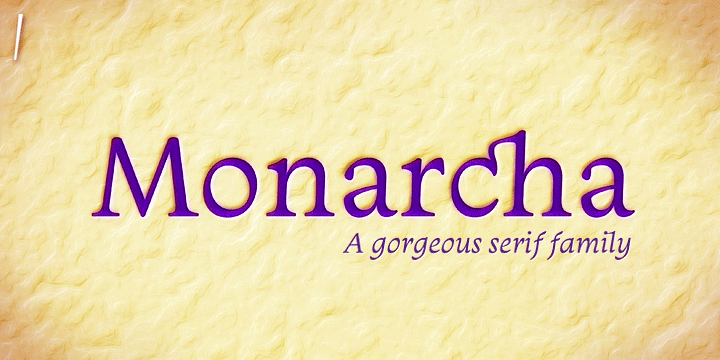
Monarcha Font is perfect for luxury royal heritage brands, prestigious crown estate communications, regal ceremonial invitations, imperial palace exhibitions, monarchical historical documentaries, royal family commemorations, sovereign state diplomatic materials, aristocratic event announcements, majestic cultural institutions, and distinguished royal court presentations. This majestic typeface excels in applications where royal authority and monarchical grandeur need to be communicated with sovereign dignity and imperial elegance that embodies the essence of royal heritage and the timeless majesty found in monarchical traditions and regal ceremonial excellence.
What makes Monarcha Font exciting is its remarkable ability to project the supreme authority and inherited dignity of monarchical rule through its regally structured letterforms that seem to carry the weight of centuries of royal tradition and the inherent nobility that defines sovereign leadership and imperial grandeur. The font embodies the spirit of royal majesty with its dignified construction and imperially proportioned characters that suggest the ceremonial gravitas and inherited authority that characterizes legitimate monarchical institutions and royal heritage. Its majestically crafted character details and sovereign personality create an atmosphere of royal distinction that resonates with heritage institutions, luxury brands, and cultural organizations who understand the enduring appeal of monarchical elegance and the sophisticated heritage that royal traditions represent in contemporary luxury markets.
The Monarcha Font family typically includes Light, Regular, Medium, and Bold weights, each maintaining the signature royal characteristics and monarchical authority. Some versions offer enhanced ceremonial variants with crown-inspired flourishes, alternative character sets with heraldic symbols and royal notation, and specialized treatments that amplify the imperial aesthetic. The family may also include condensed styles for efficient royal documentation and display cuts optimized for maximum majestic impact in heritage and luxury applications requiring authentic royal credibility and sovereign dignity.
Whether you're creating royal heritage brands, monarchical cultural materials, or luxury sovereign communications, Monarcha Font Free Download delivers the perfect imperial authority your majesty-focused projects deserve. Its royal character and monarchical styling make it an invaluable choice for heritage institutions, luxury brands, and cultural organizations working in royal heritage preservation, luxury lifestyle, and aristocratic tradition sectors where authentic royal authority and imperial sophistication are essential for establishing credibility with discerning audiences who appreciate the timeless elegance and cultural significance of monarchical heritage and royal ceremonial traditions.